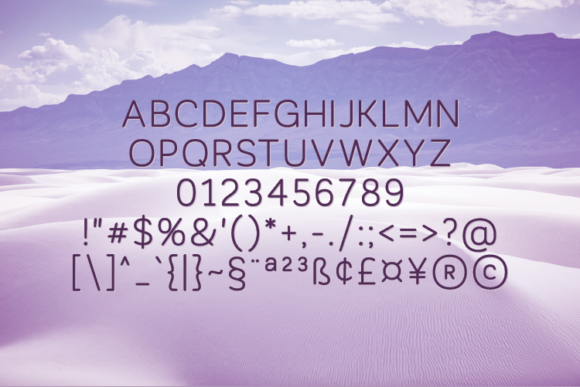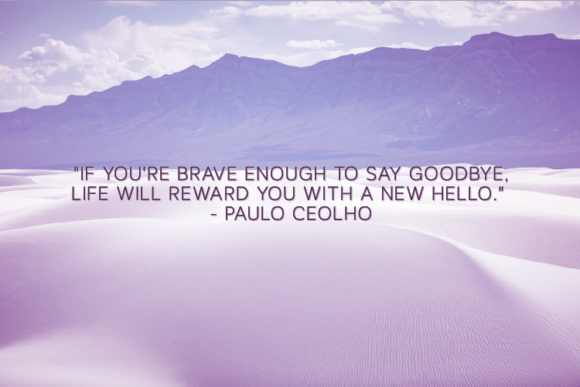
Discover the Elegance of Djaniero Font: Elevate Your Designs with Simplicity
In the world of typography, finding the perfect font that complements your project can be a daunting task. However, if you’re looking for a simple, neat, and versatile sans serif font, look no further than Djaniero Font. Designed to enhance every project you’re working on, Djaniero offers a wide range of creative possibilities, from stunning headings and elegant invitations to captivating logos and more.
The Essence of Djaniero Font
Djaniero Font is a meticulously crafted typeface that embodies simplicity and elegance. Its clean lines and uncluttered design make it an ideal choice for designers and crafters seeking a font that can seamlessly integrate into various projects. Whether you’re working on a modern website, a branding campaign, or a creative craft project, Djaniero’s versatility ensures it will complement your work beautifully.
Key Features of Djaniero Font
- Simplicity: Djaniero’s straightforward design ensures that your message is conveyed clearly and effectively, without any distractions.
- Neat Appearance: The font’s neat appearance adds a touch of sophistication to any project, making it perfect for professional and personal use.
- Sans Serif: As a sans serif font, Djaniero offers a modern look that is both clean and highly legible.
- Versatility: From headings and titles to logos and invitations, Djaniero can be used across a wide range of applications.
Creative Applications of Djaniero Font
Djaniero’s flexibility makes it suitable for numerous creative projects. Here are some ideas to get you started:
- Headings and Titles: Use Djaniero to create eye-catching headings and titles for your website, blog, or marketing materials.
- Invitations: Add a touch of elegance to your invitations, whether it’s for a wedding, birthday party, or corporate event.
- Logos: Djaniero’s unique yet simple design makes it an excellent choice for logos that require a professional and modern look.
- Craft Projects: If you’re into crafting, Djaniero can be used for making cards, scrapbooking, and other DIY projects.
Why Choose Djaniero Font?
With so many fonts available, why should you choose Djaniero? Here are a few compelling reasons:
- Legibility: Djaniero’s clear and simple design ensures that your text is easily readable across various devices and sizes.
- Timeless Appeal: Unlike trendy fonts that may quickly become outdated, Djaniero’s classic design ensures it will remain relevant for years to come.
- Easy to Pair: Djaniero can be easily paired with other fonts to create a unique and harmonious typography combination.
How to Use Djaniero Font Effectively
To make the most of Djaniero Font, consider the following tips:
- Experiment with Sizes: Play around with different font sizes to create visual hierarchy and emphasize key points.
- Combine with Images: Pair Djaniero with high-quality images to enhance the overall aesthetic of your project.
- Limit Font Weights: Stick to one or two font weights to maintain a clean and cohesive look.
Djaniero Font is a versatile and elegant sans serif font that can elevate your designs to new heights. Its simplicity, neat appearance, and wide range of applications make it an excellent choice for designers and crafters alike. Whether you’re working on a professional project or a personal craft, Djaniero is sure to complement your work beautifully. So why wait? Discover the elegance of Djaniero Font today and take your designs to the next level!